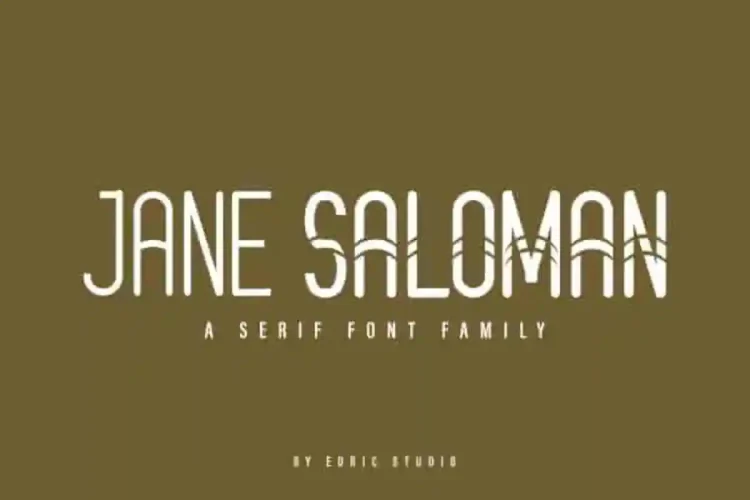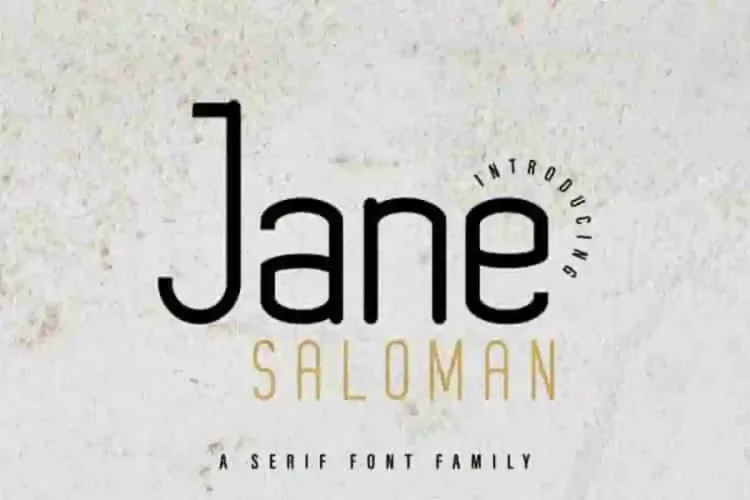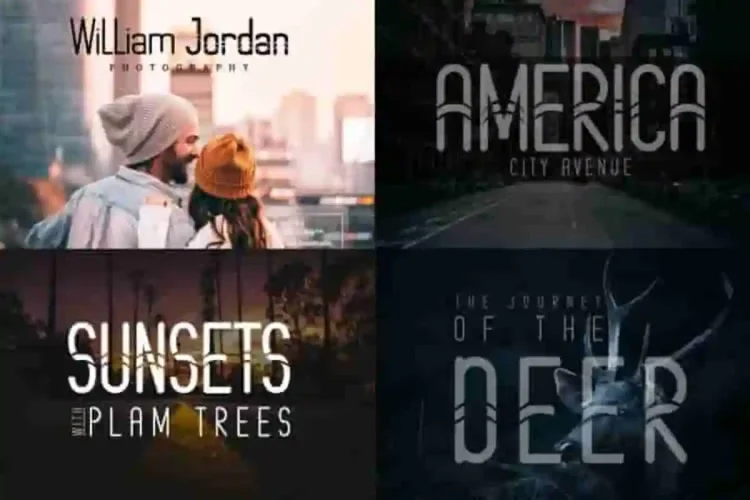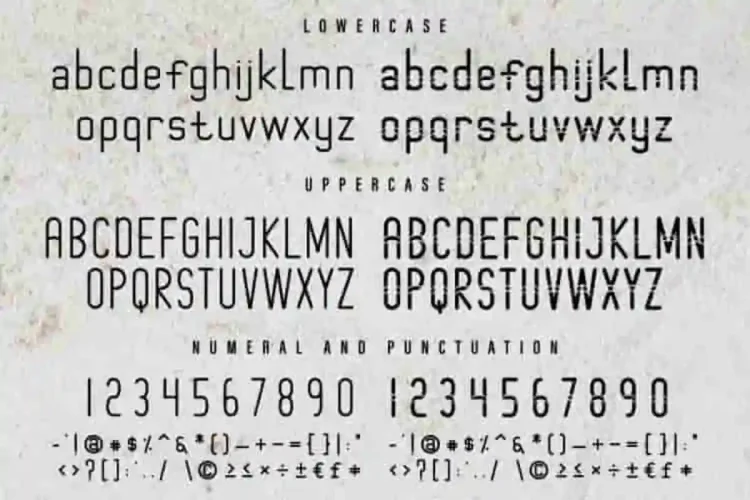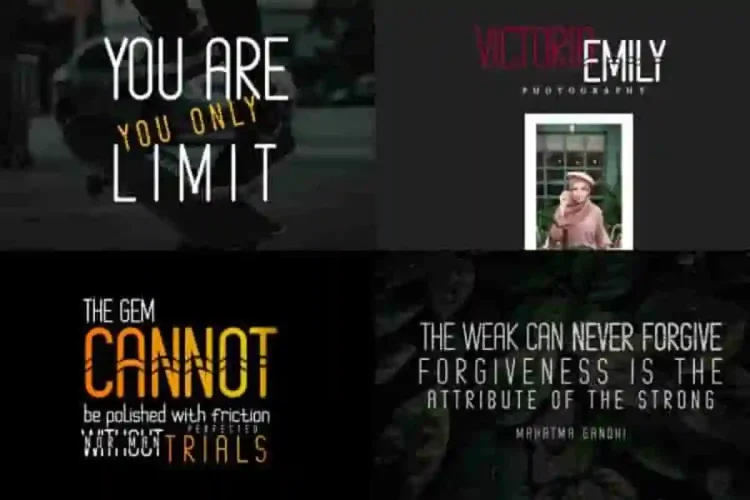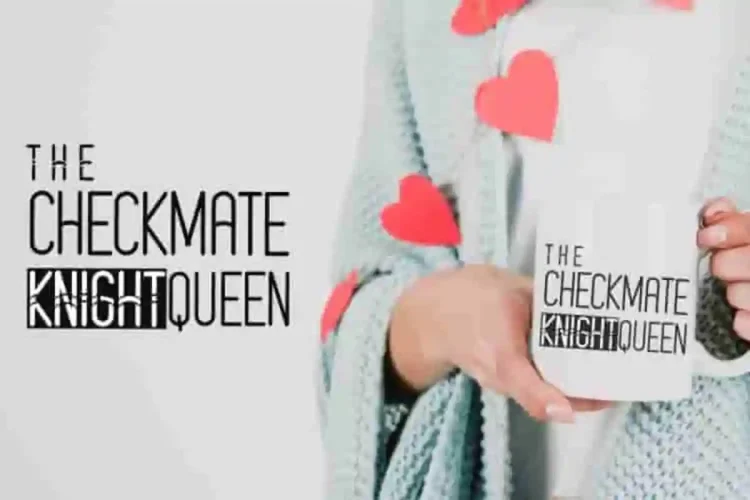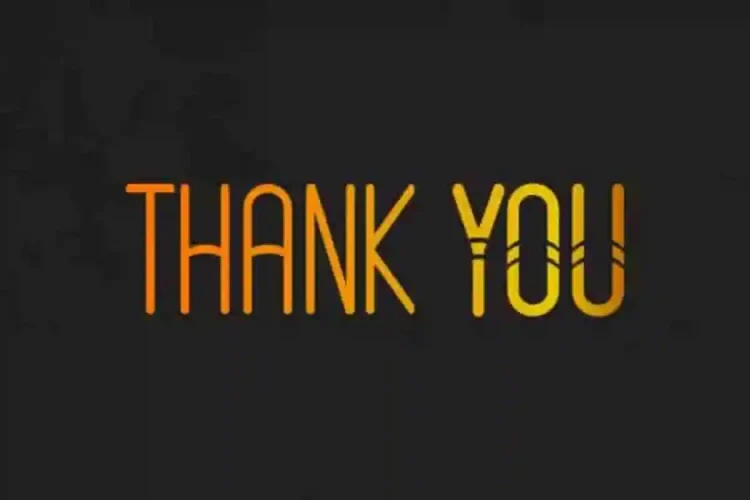
Jane Saloman Serif Font Family
Introducing Jane Saloman, our newest font creation.
Jane Saloman is a sans serif display font, handcrafted from our Studio here in, Indonesia. The artists/designers of this beautiful tyeface is Renata and Suci.
Jane Saloman Font is an exclusive sans serif display typeface with unique modern style. This font has a stunning characters set, perfectly managed with well spaced and kerning.
Jane Saloman will be great for any projects including : branding, logo, stationery, business card, signage, flyer, brochure etc. Almost all industries will be match for this typeface: startup, events, real estate, technology, agency, gaming, movie, etc.